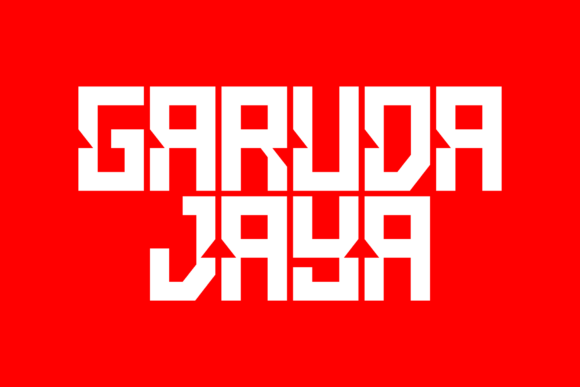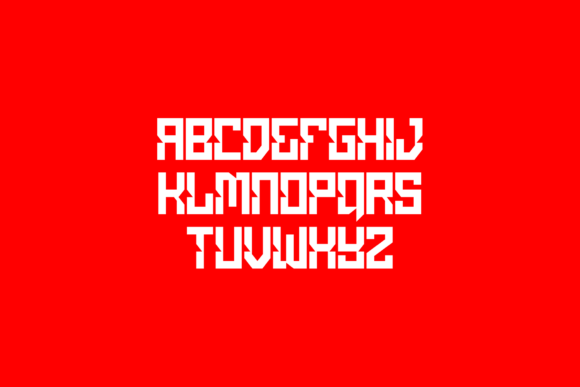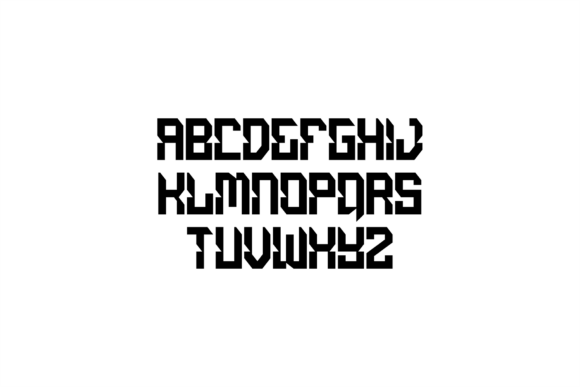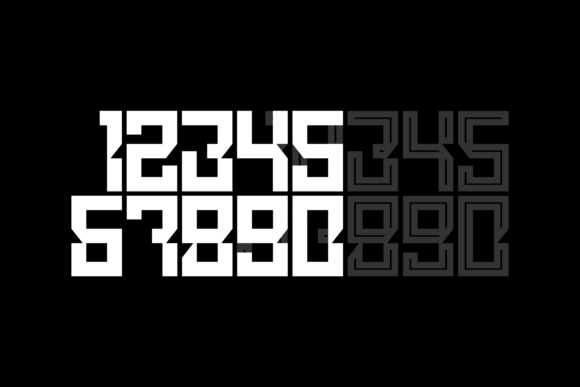
Garuda Jaya Font: A Bold Display Font for Sport Branding & Logos
About the Garuda Jaya Font
Experience the unique personality of Garuda Jaya Font, a font designed for impact. Garuda Jaya Font is a bold and dynamic typeface inspired by the strength and pride of the Garuda, Indonesia’s national symbol. With its sharp yet fluid strokes, this font embodies power, speed, and determination—perfect for sports branding, jersey numbers, or any design that demands a commanding presence. Its modern, slightly aggressive curves give the impression of movement, making it ideal for footballs, logos, and championship posters. Whether used for team emblems or promotional materials, **Garuda Jaya Font** ensures a fierce and victorious look, capturing the spirit of champions.
Garuda Jaya Font Usage Examples
Garuda Jaya Font Example